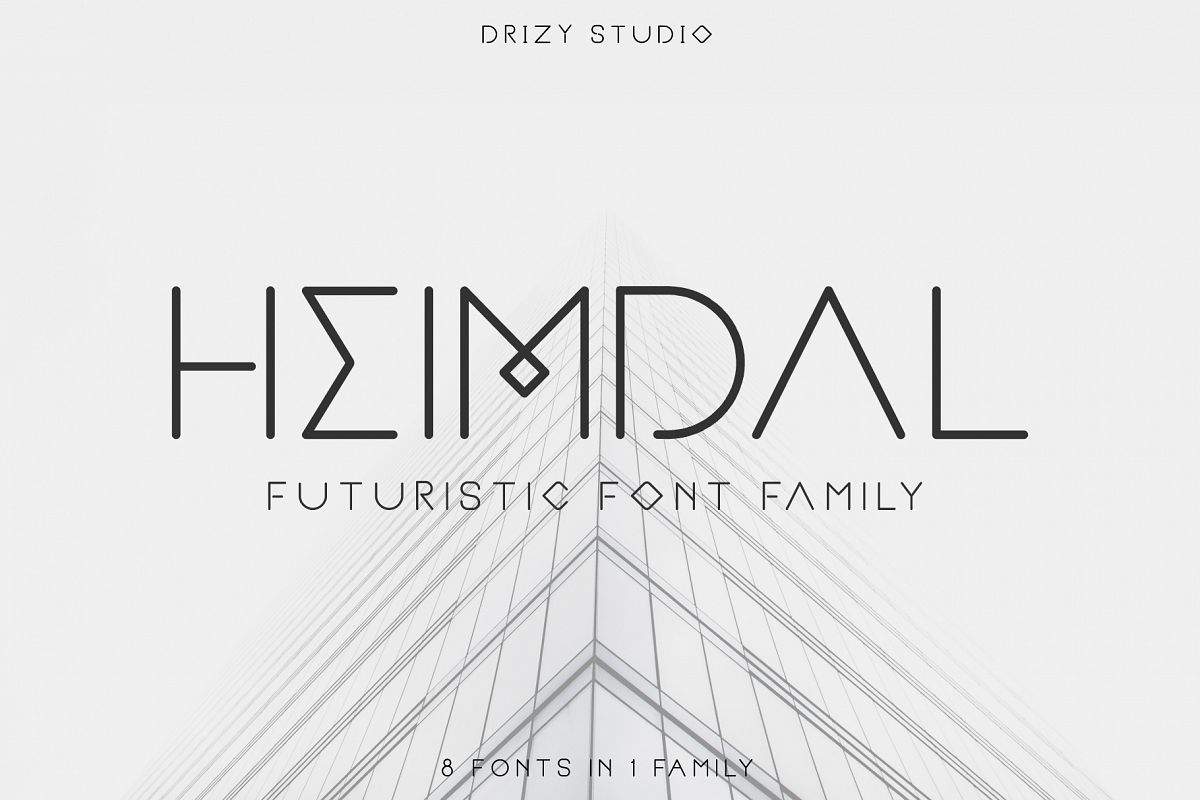
Created By drizy studio
Heimdal
Introducing HEIMDAL! a new sans serif font with 8 fonts in 1 family, inspired from traditional minimalist sign. HEIMDAL is a modern, futuristic, minimal and clean. With upper & lower case characters, numbers, and punctuation. This font makes way for the creativity of each and every one. HEIMDAL is great for creating eye-catching headlines, logo, applicable for any type of graphic design web, print, motion graphics, perfect for poster/flyer, branding, packaging, pictograms, etc.What you get on the master file: